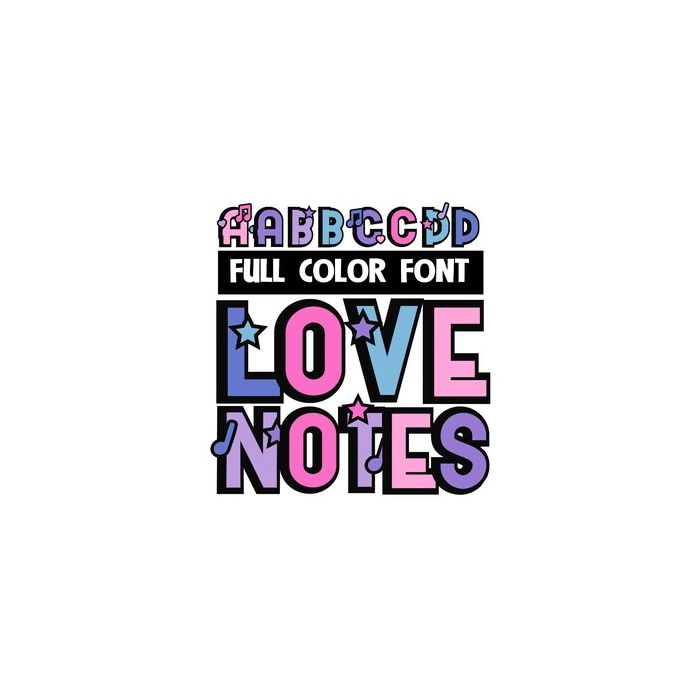
This full-color font features an Valentines color palette and musical notes. This font works best for titles, displays, posters and more. Please note color fonts will show as black in non compatible programs. This font type is compatible with Silhouette Studio.